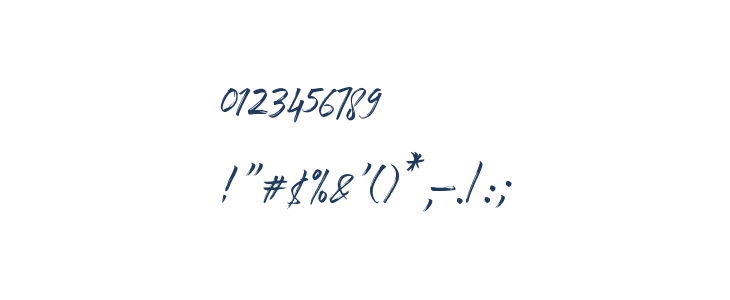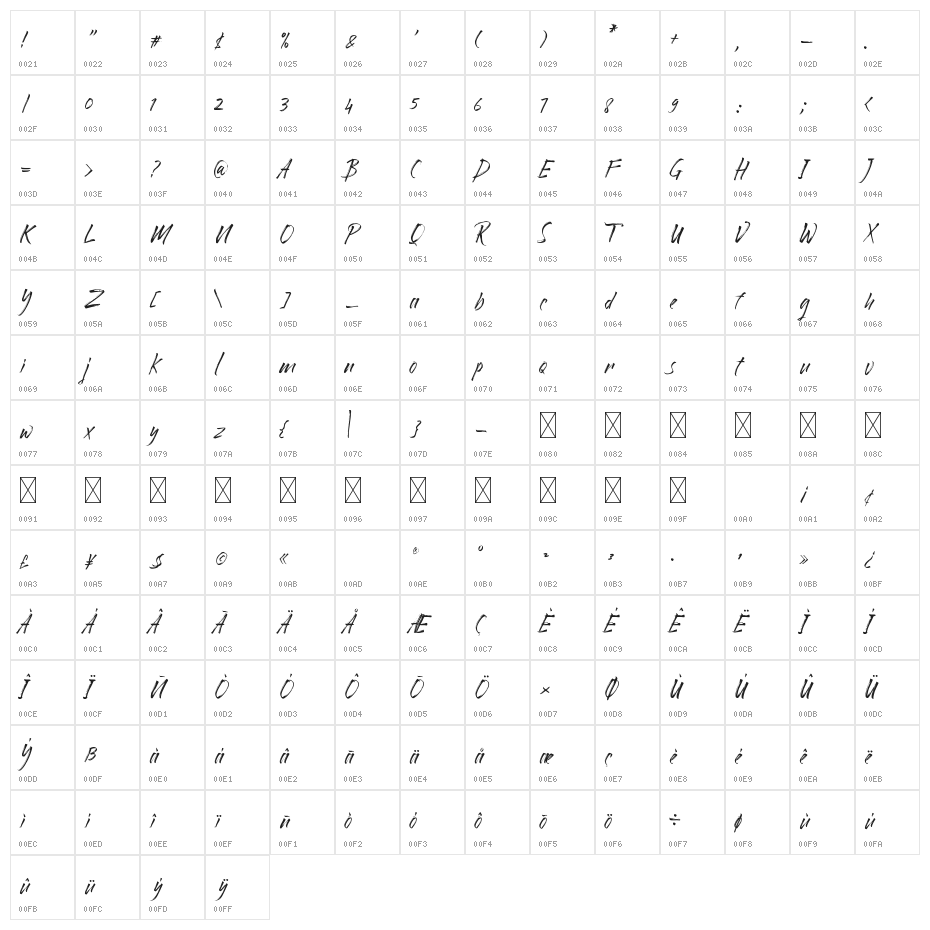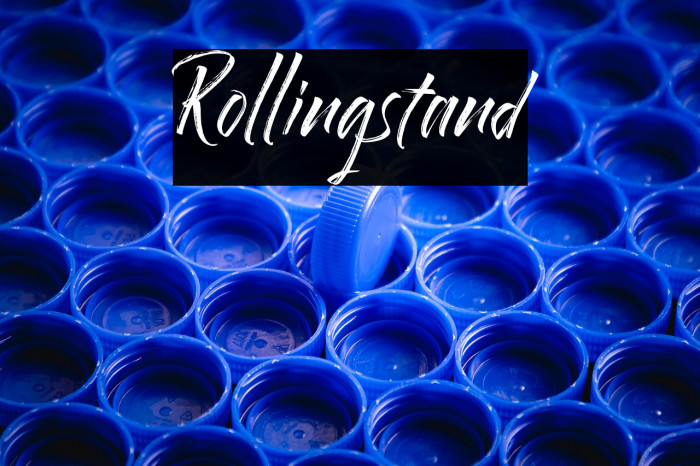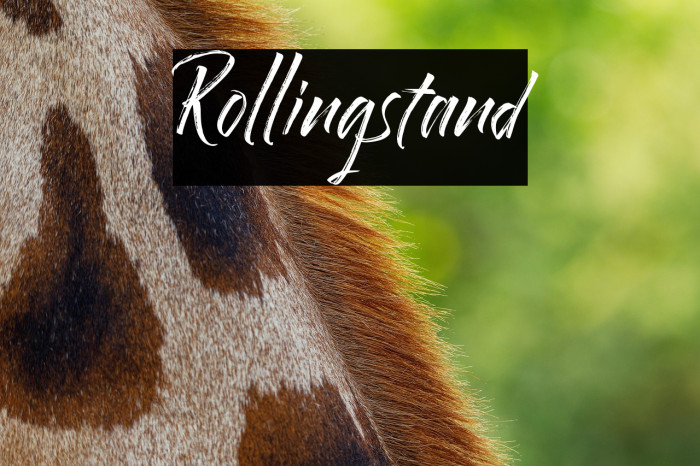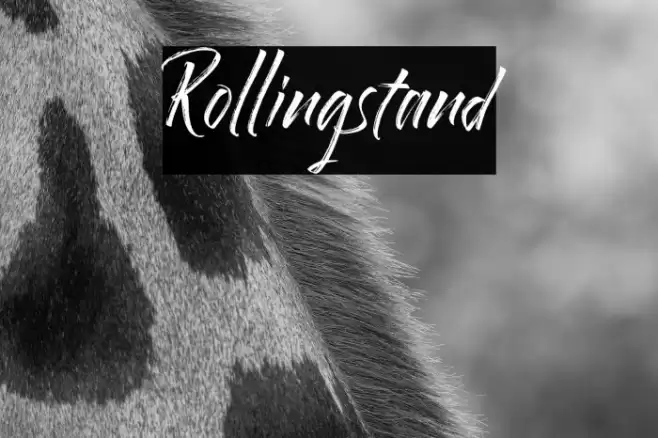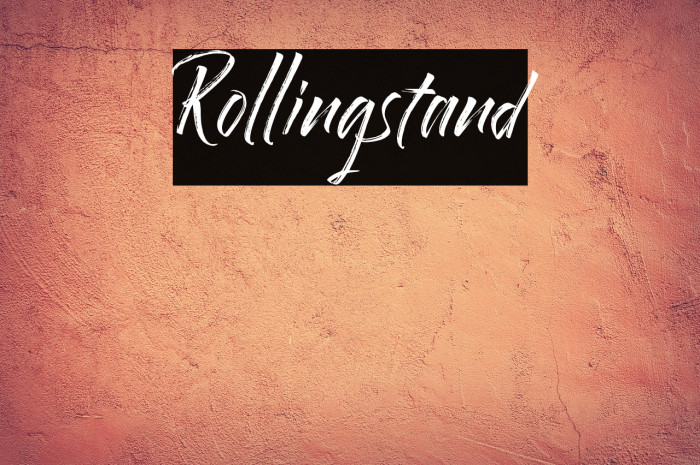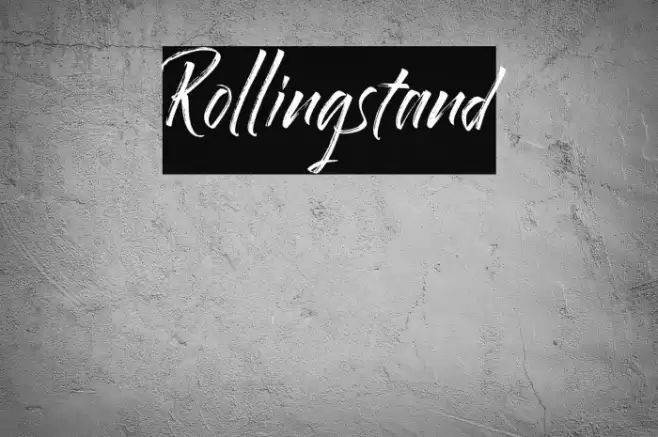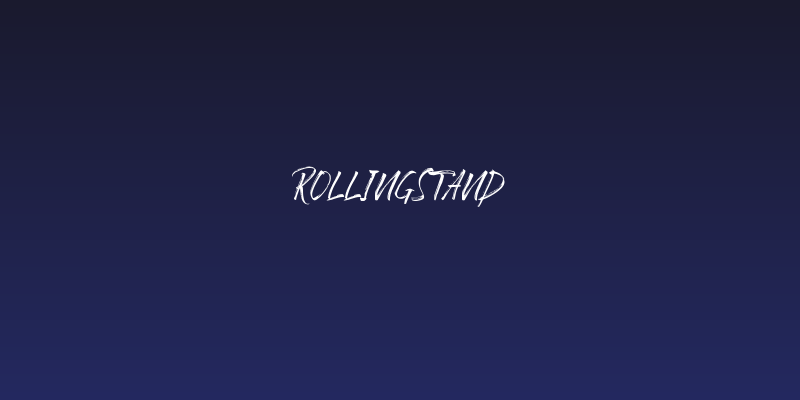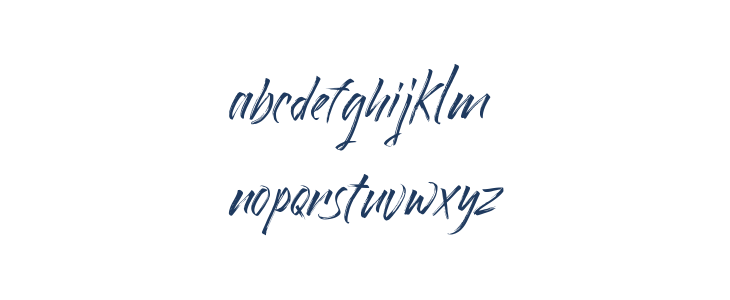
Rollingstand Font
Rollingstand Description
This font exhibits a dynamic and expressive handwritten style, characterized by its fluid and energetic strokes. The uppercase letters are bold and slightly slanted, giving a sense of movement and flair. The lowercase letters maintain a consistent flow, complementing the uppercase with their smooth curves and loops. Numbers and special characters are crafted with the same lively spirit, ensuring a cohesive look across all elements. The overall appearance is both artistic and modern, making it suitable for creative projects that require a personal touch.
| Proposed Projects | Ideal for branding, invitations, posters, and artistic projects that require a personal and energetic touch. |